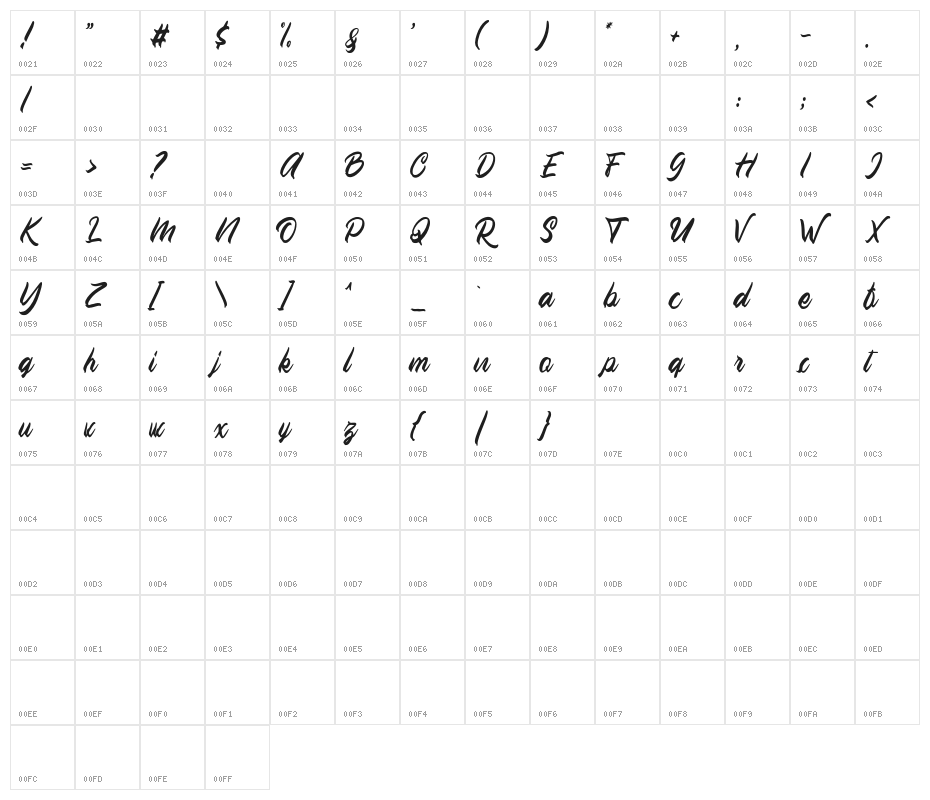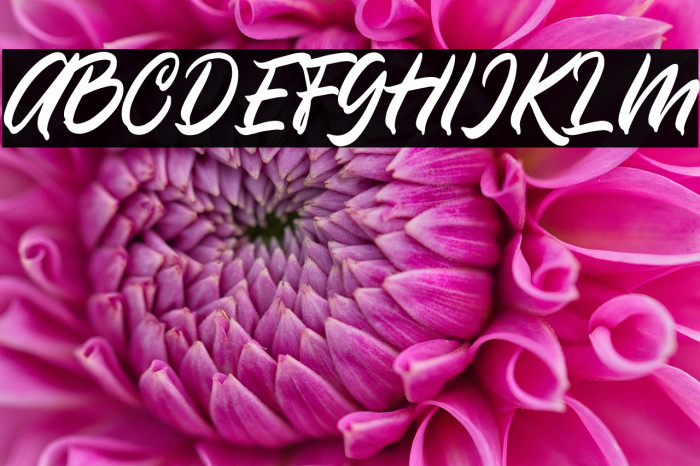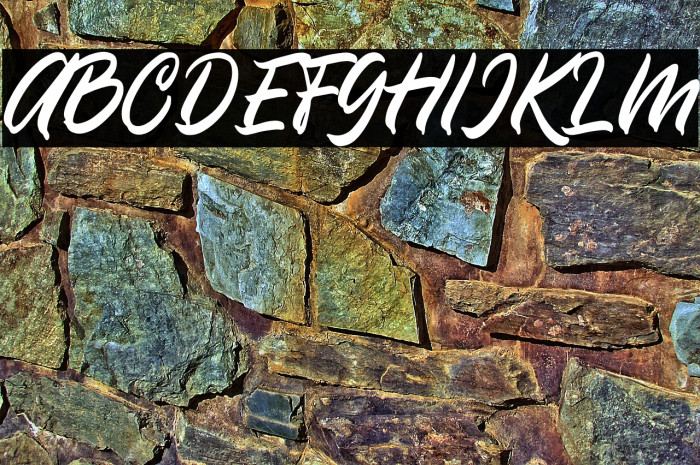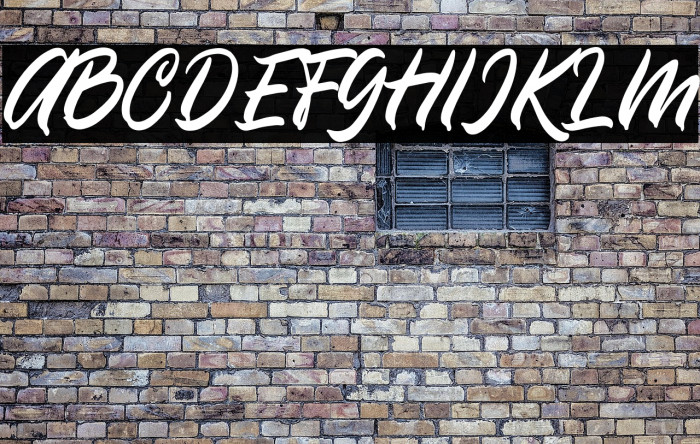
Olivia Font
Olivia Description
This font features a dynamic and fluid script style, characterized by its elegant and flowing letterforms. The strokes are bold and confident, with a slight slant that adds a sense of motion and grace. The uppercase letters are distinct and prominent, while the lowercase letters maintain a cohesive and harmonious flow. The numerals and special characters are designed to complement the overall aesthetic, maintaining the same bold and expressive quality. This font is ideal for projects that require a touch of sophistication and flair.
| Proposed Projects | Ideal for wedding invitations, branding, logo design, and elegant packaging. |